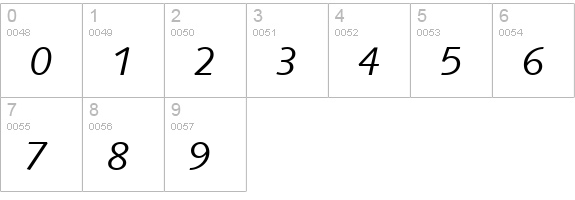
Facile SSi Italic Font Details
Facile SSi Italic is a distinctive, italic variant in the Facile typeface family \xE2\x80\x94 well suited to design and typography projects.
Introducing Facile SSi Italic, a stunning and versatile font that effortlessly adds a touch of elegance and sophistication to any design project. Its sleek and modern aesthetic is perfect for creating eye-catching headings, stylish logos, and captivating typography that demands attention. Designed with meticulous attention to detail, Facile SSi Italic boasts a harmonious balance of curved and angled letterforms, resulting in a unique and distinctive typeface that stands out from the crowd. Its italicized slant adds a dynamic and energetic flair, making it ideal for conveying a sense of movement and momentum. With its wide range of weights and styles, Facile SSi Italic offers endless possibilities for creative exploration. Whether you're designing for print or digital, this font adapts effortlessly to various mediums, ensuring seamless integration into any project. One of the most remarkable aspects of Facile SSi Italic is that it is freely available to download at FontsMarket.com. This means that you can enjoy the benefits of this exceptional font without any cost. It's a fantastic opportunity to elevate your design game without breaking the bank. So why wait? Download Facile SSi Italic today and unlock a world of design possibilities. Whether you're a professional designer or an aspiring enthusiast, this font is sure to become an invaluable asset in your creative toolbox. Don't miss out on the chance to enhance your designs with the elegance and versatility of Facile SSi Italic.